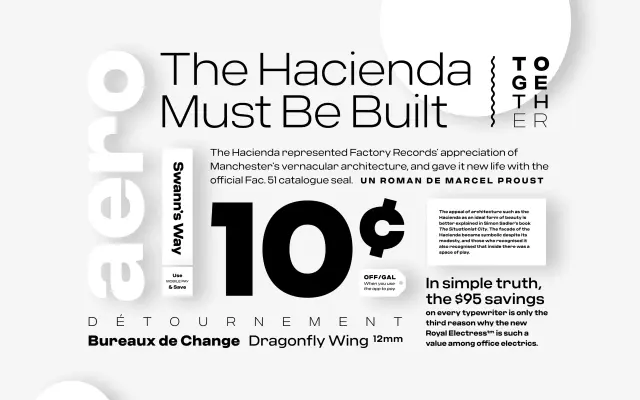
Criteria CF
A nine-weight geometric sans from Connary Fagen, built on circles and straight lines with Swiss style touches and oblique companions across every weight.
Eighteen styles span nine weights from Thin to Black, each paired with an oblique, covering Latin and Vietnamese script. Construction is deliberately simple and efficient, using clean circles and straight lines, though stylistic sets for alternate letterforms add some flexibility. Aimed at stacked body text, display headlines and wordmarks, it sits in familiar geometric territory without straying far from convention.
Built on simple geometric construction using straight lines and clean circles, with explicit Swiss style influences placing it firmly in the geometric sans tradition.